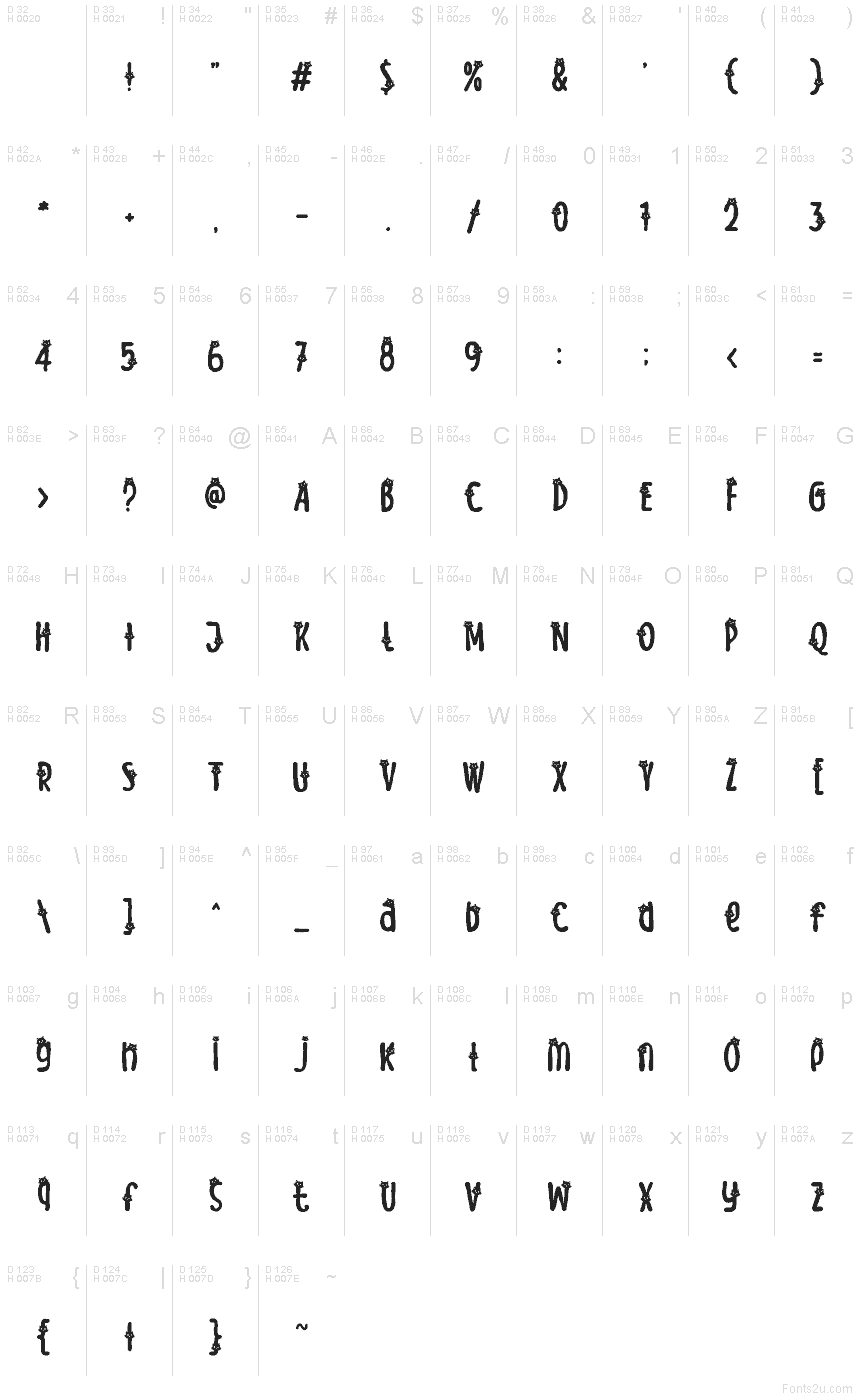
Meow Zilla Cat 4
Meow Zilla Cat 4 font by PutraCetol Studio is a free playful decorative display font. Part of the Meow Zilla family, it stands out with tall, jellybean-thick strokes and a bouncy rhythm, while tiny cat heads perch like crowns on key letters. The forms feel inky and soft-edged, with roomy counters that keep things legible even when the layout gets lively.
Using Meow Zilla Cat 4, you can bring instant charm to pet shop logos, kids’ apparel tags, birthday invitations, classroom posters, sticker packs, and YouTube thumbnails. This free font shines on big, friendly headlines where its quirky silhouettes can breathe. Pair it with a clean rounded sans for body copy to balance the whimsy and keep the message clear.